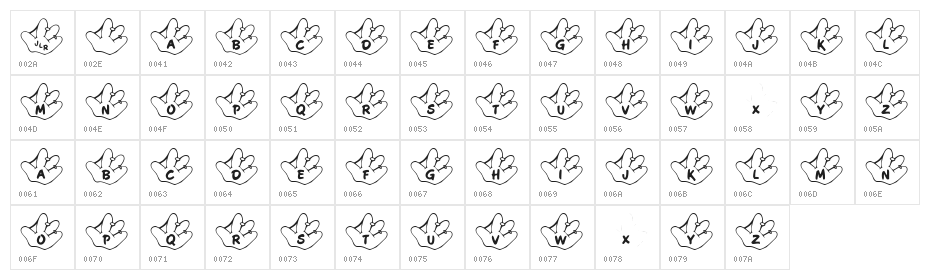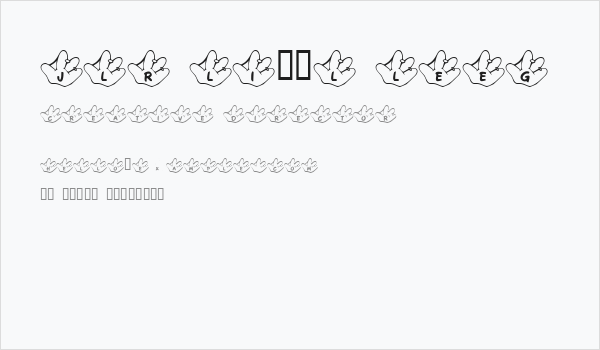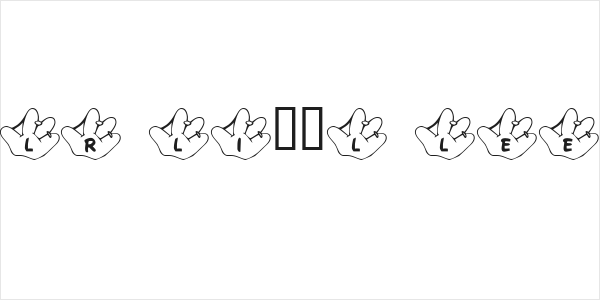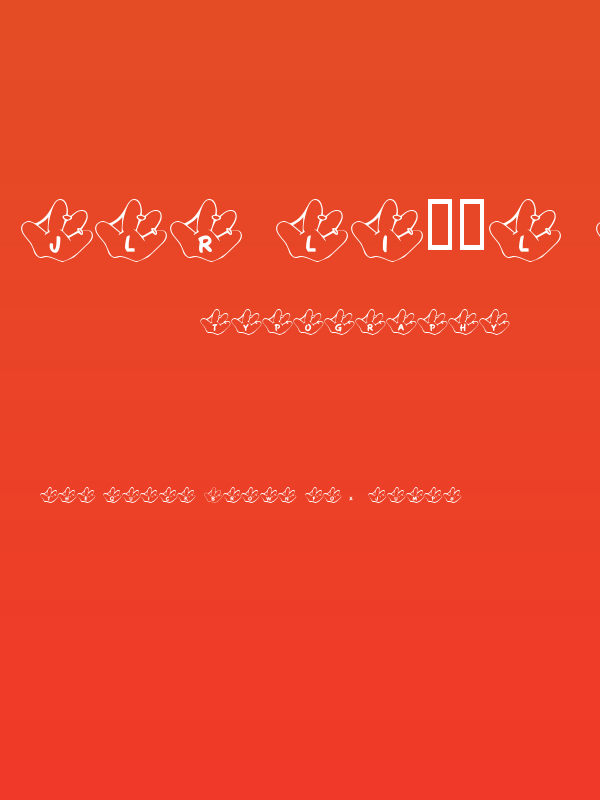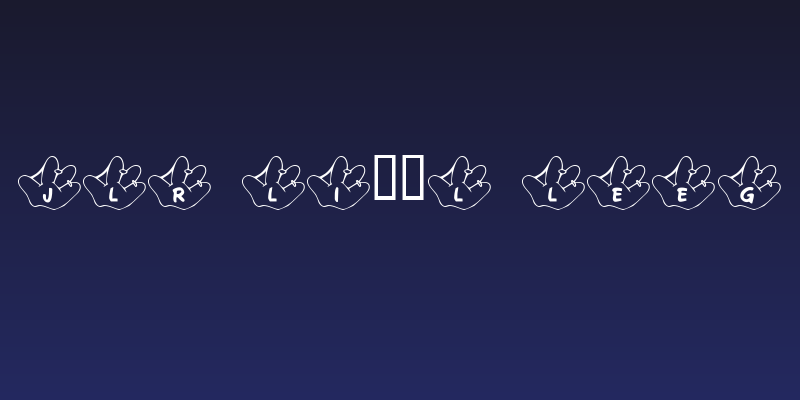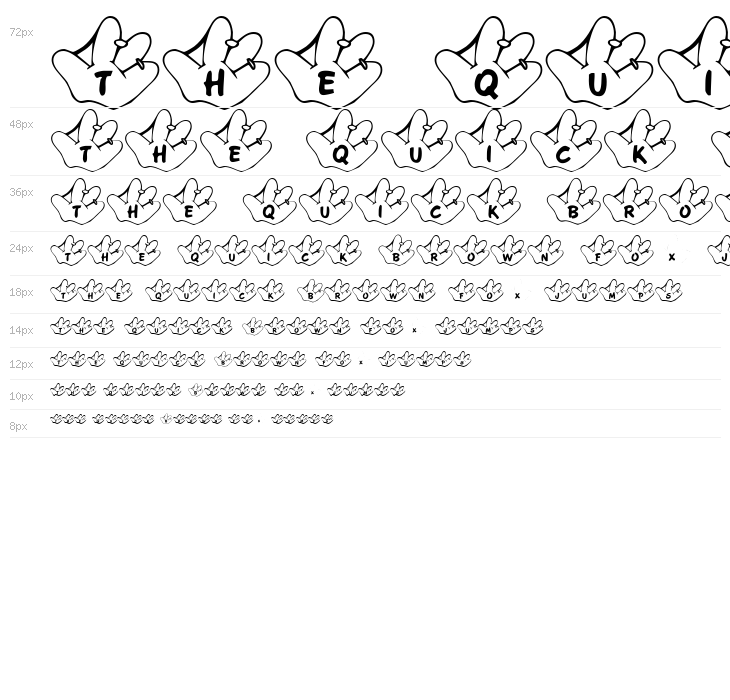
JLR Li'l Leeg Font
JLR Li'l Leeg Description
This playful and whimsical font features letters embedded within cartoonish hand shapes, giving it a unique and eye-catching appearance. The design is characterized by bold outlines and a fun, informal style that captures attention. Each letter is distinct, yet they all share a cohesive theme of being nestled within these quirky hand illustrations. The font's overall look is both entertaining and engaging, making it suitable for creative and lighthearted projects. Its distinctive style ensures that it stands out, making it ideal for uses where a touch of humor and creativity is desired.
| Proposed Projects | Ideal for children's books, comic strips, playful branding, and party invitations. |